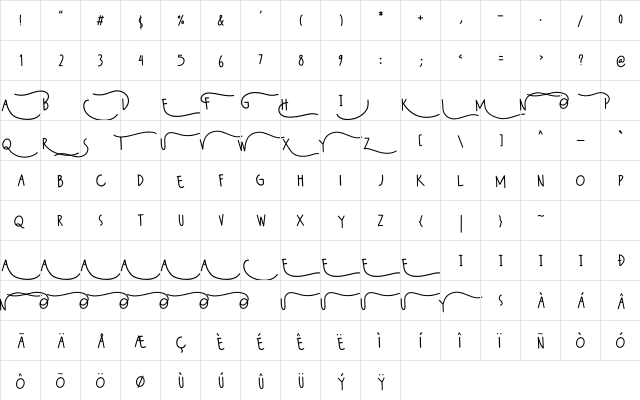
Wildy Sans Regular
| Foundry | Dikas Studio |
| Designer | Andika Setiawan |
Design Context for Wildy Sans Typeface
Wildy Sans offers clean, dependable letterforms without strong stylistic allegiance, making it a practical choice for designers who need flexibility.